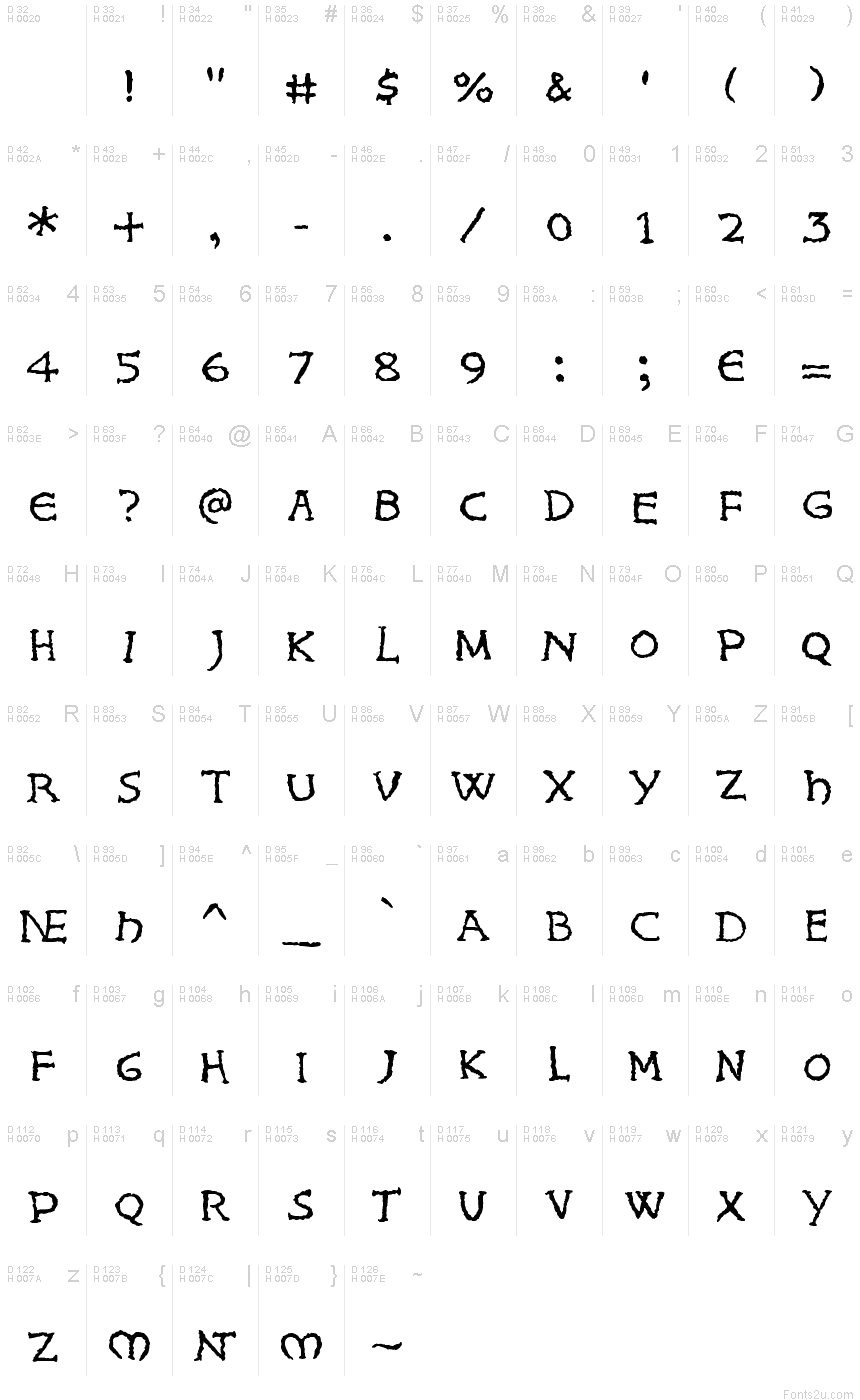
King Harold by Harold Lohner is a free eroded medieval display font with rough, hand-hewn capitals. Uneven edges, blunt serifs, and shifting stroke widths give the letters the look of worn woodcut type rather than polished historical lettering.
It can create a weathered title for fantasy games, theatrical posters, and medieval festival signage. The chipped silhouettes also connect well with shields, castle illustrations, and carved-stone textures, allowing the lettering to become part of the scene instead of a caption.